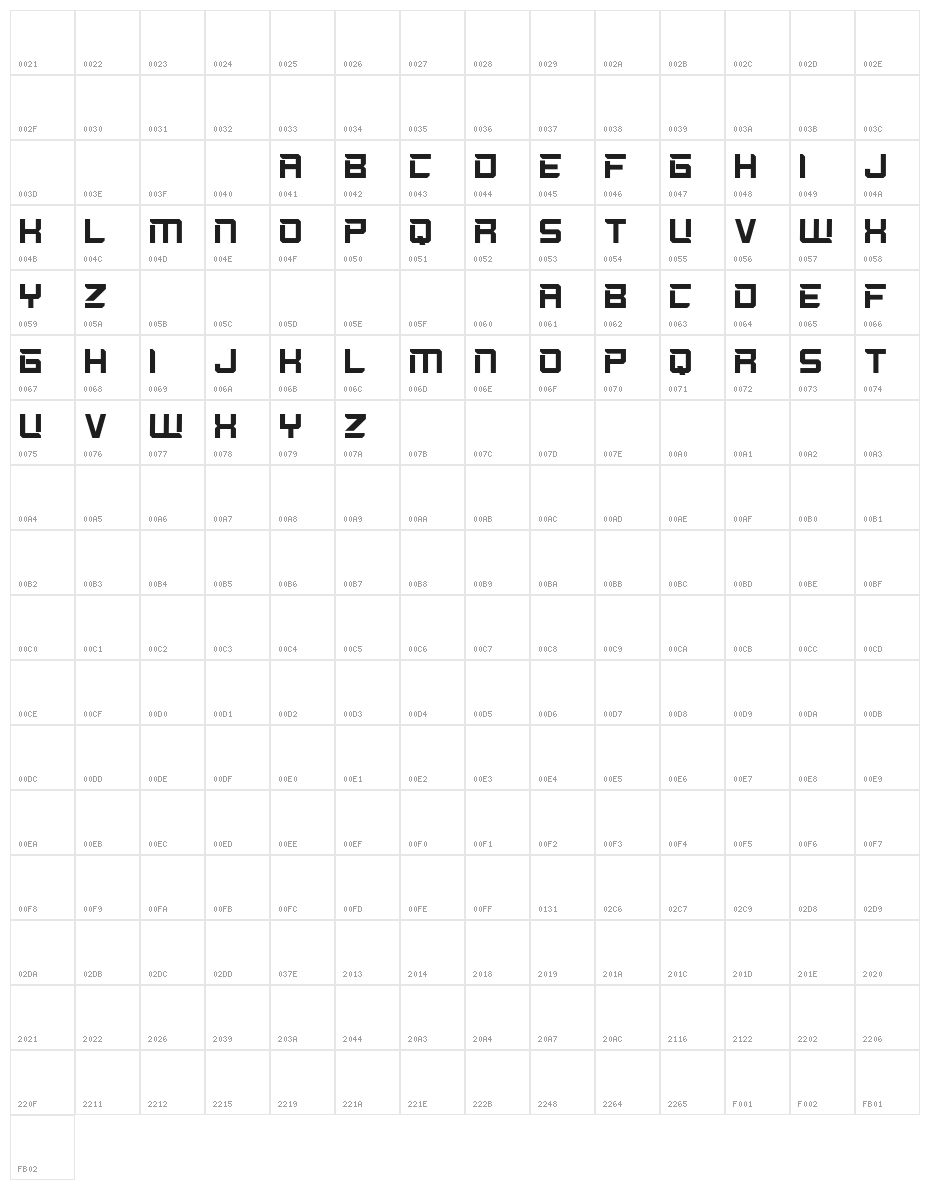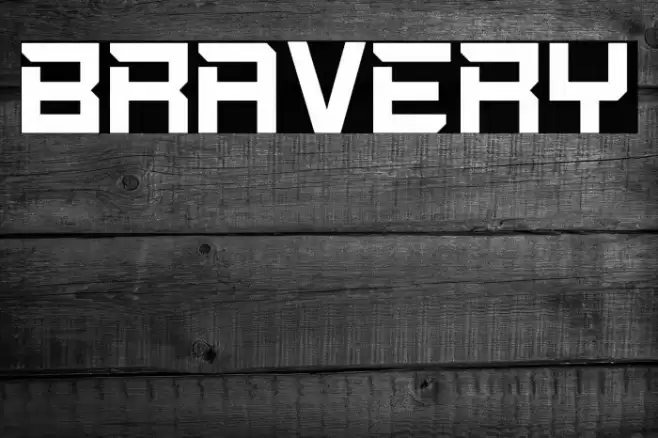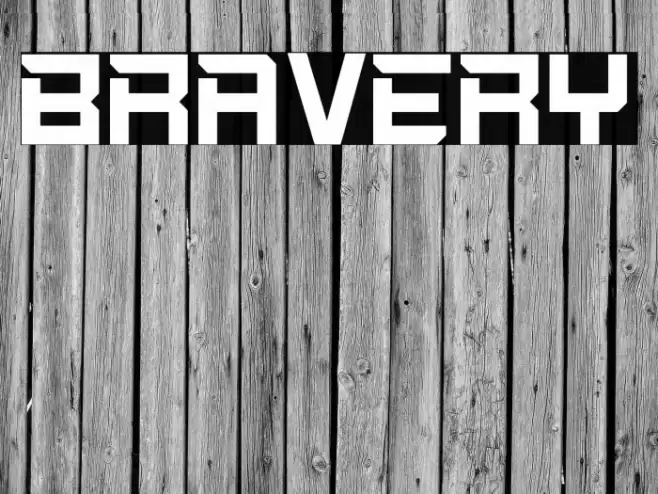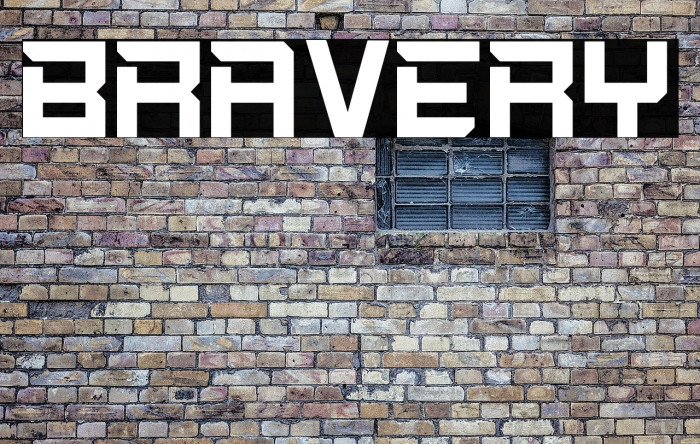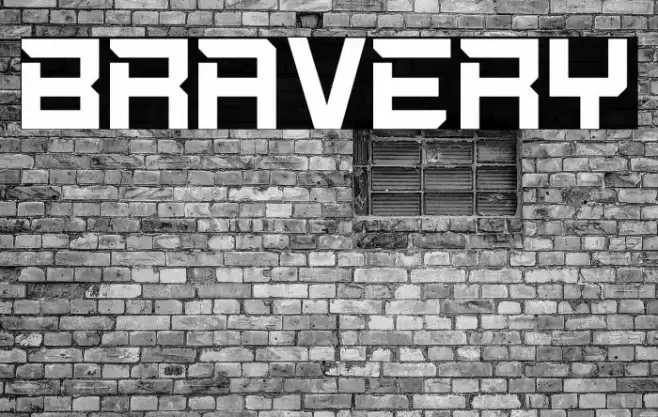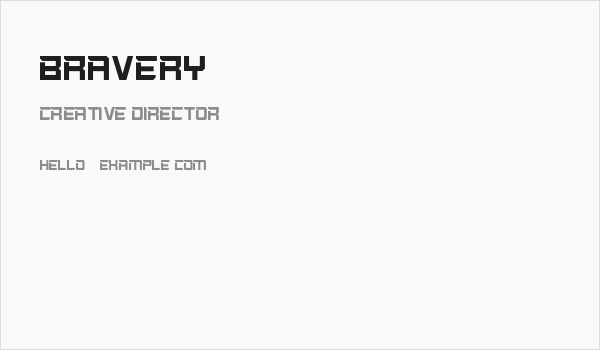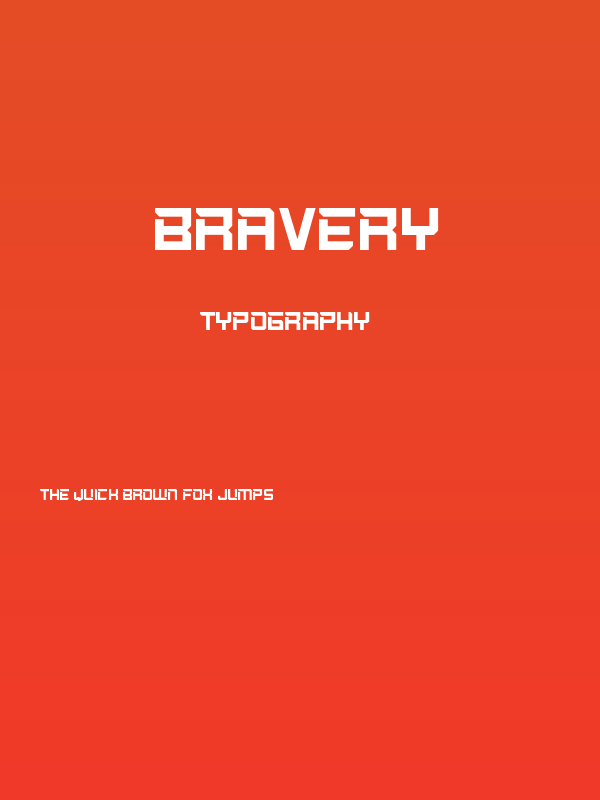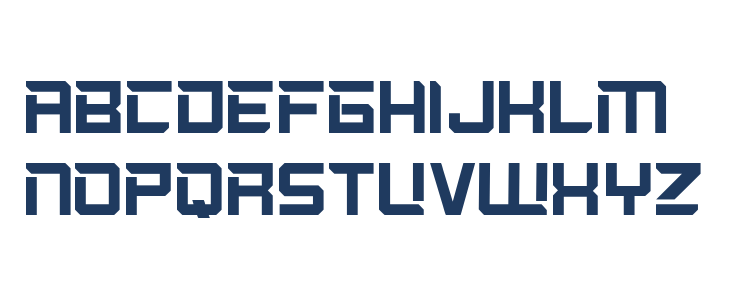
Bravery Font
Bravery Description
This font features a bold, geometric design with a futuristic and industrial feel. The characters are constructed with sharp angles and straight lines, giving it a strong and assertive appearance. The uppercase letters are uniform in height, while the lowercase letters maintain a consistent style, enhancing readability. The font's structure is reminiscent of digital or sci-fi themes, making it suitable for modern and tech-oriented projects. Its distinct style can capture attention and convey a sense of strength and innovation.
| Proposed Projects | Ideal for technology branding, sci-fi movie posters, video game titles, and modern logos. |